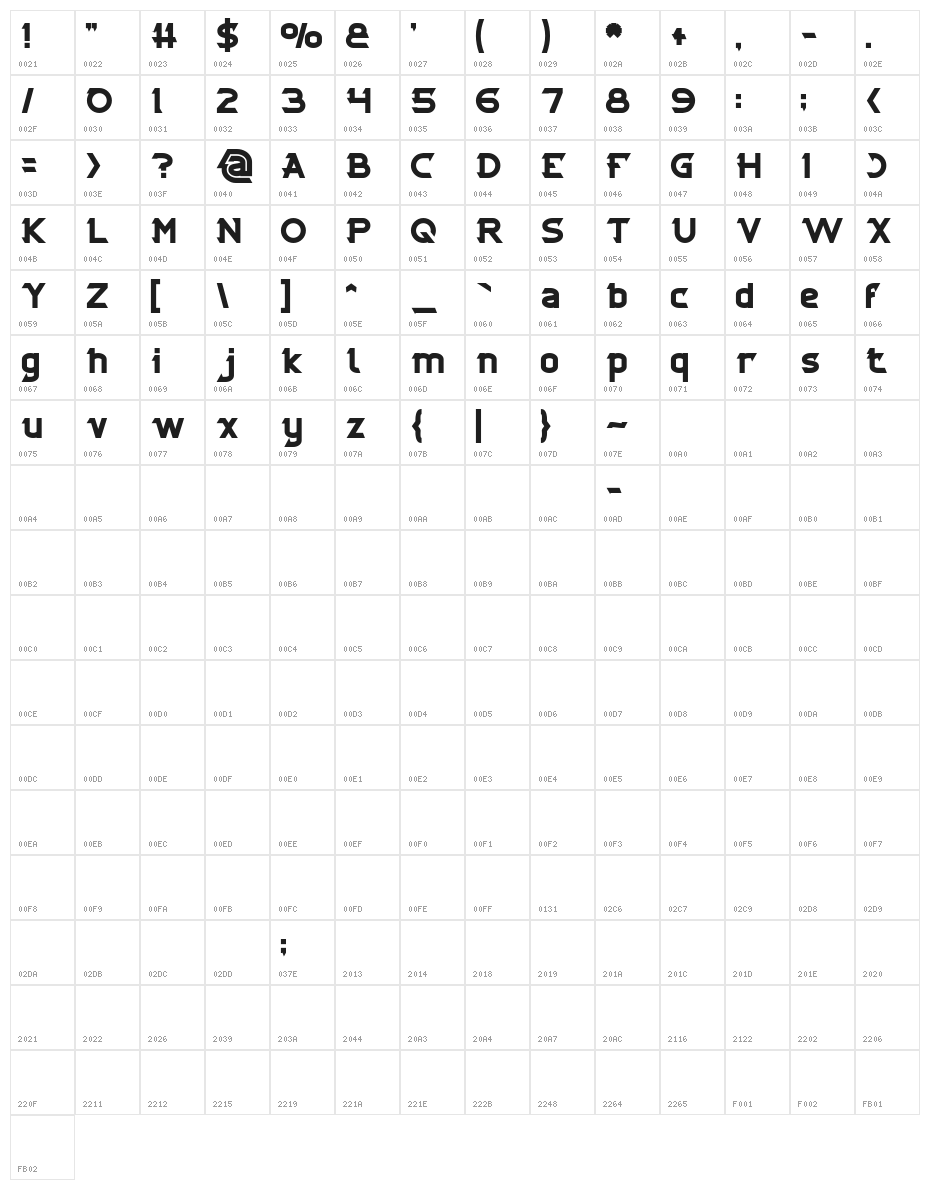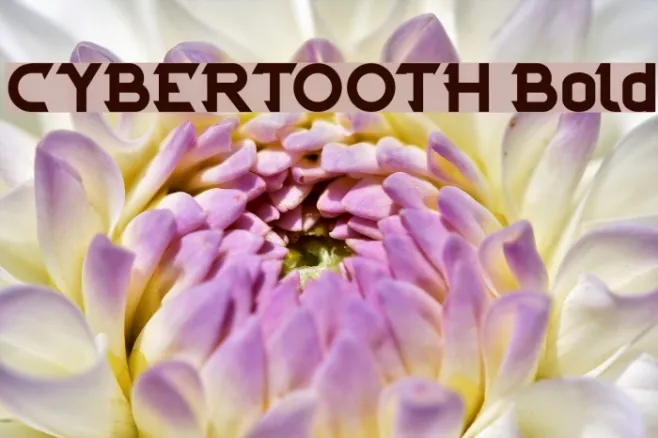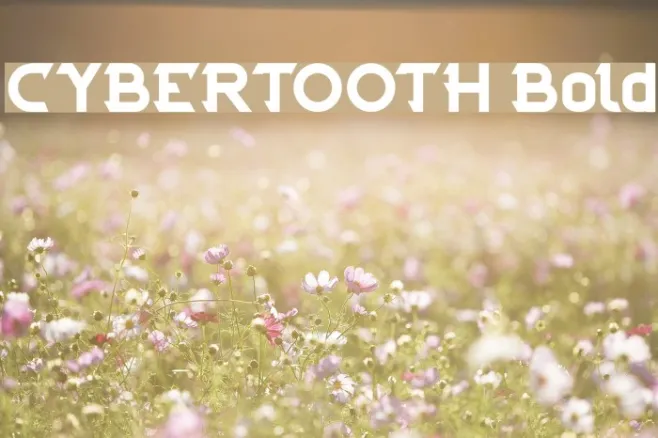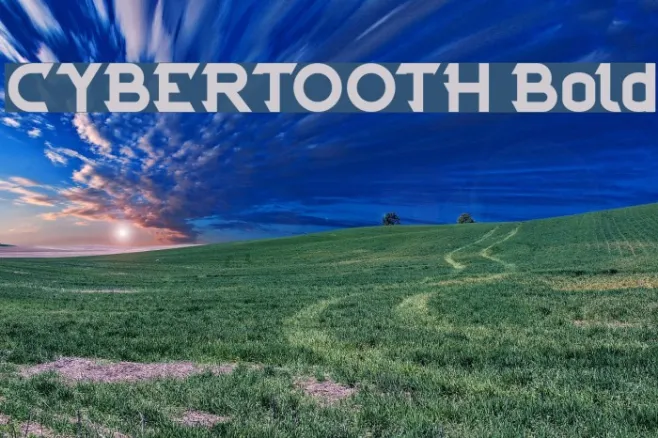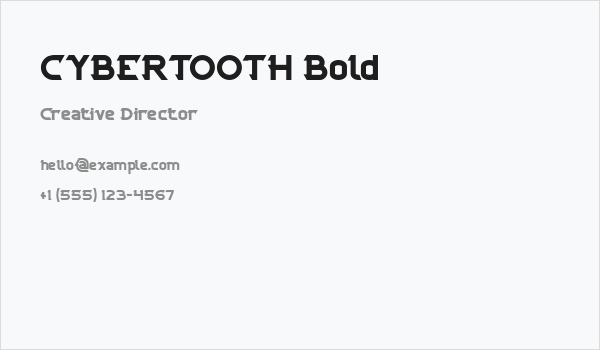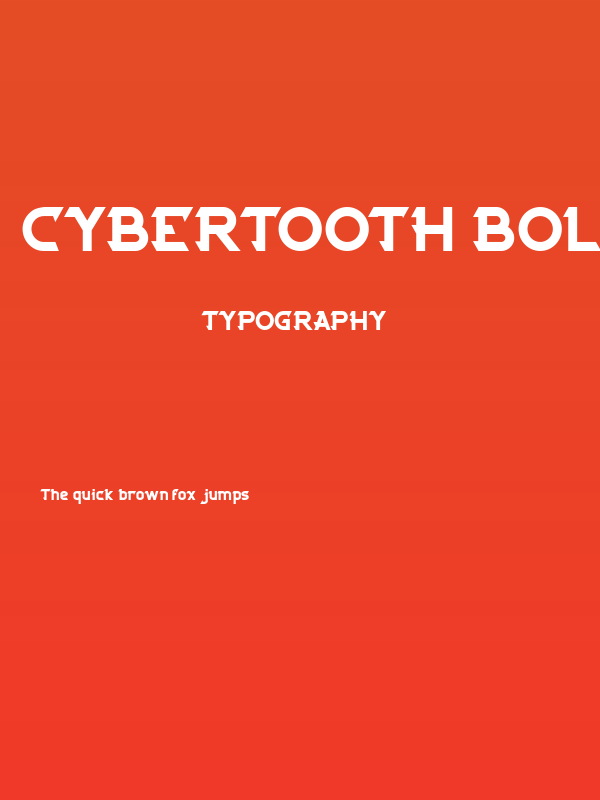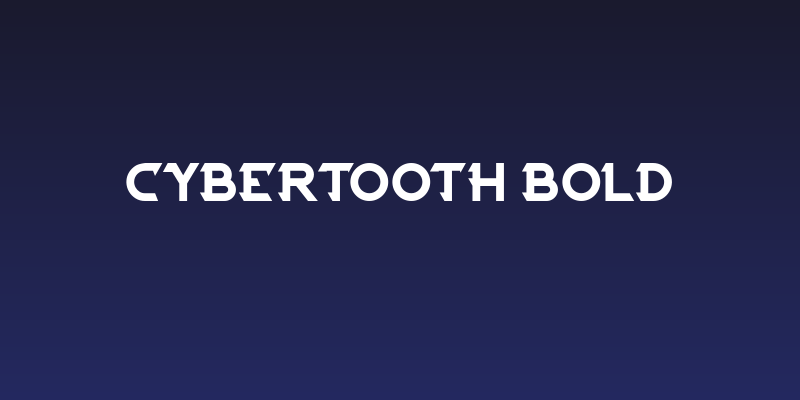
CYBERTOOTH Bold Font
CYBERTOOTH Bold Description
This font features a bold and futuristic design with sharp, angular lines and a geometric structure. The uppercase letters are particularly striking, with a strong presence and unique cuts that give them a cybernetic feel. The lowercase letters maintain the boldness but with slightly softer edges, providing a nice contrast to the uppercase. Numbers and special characters follow the same design principles, ensuring consistency throughout. The overall style is modern and tech-inspired, making it suitable for projects that require a strong, digital aesthetic.
| Proposed Projects | Ideal for technology branding, video game titles, sci-fi movie posters, and digital media. |